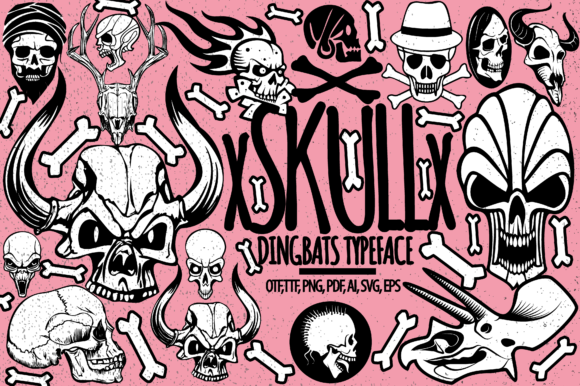
Journey into the realm of the macabre with X Skull X Font, a dingbats font that conjures eerie skull motifs with every keystroke. Unleash your creativity and delve into a world of sinister designs. This font invites you to explore a haunting aesthetic that will capture the attention of horror enthusiasts and Halloween fanatics alike.
Crafted by Minimalistartstudio, X Skull X Font transforms letters and numbers into a symphony of skulls, bones, and other haunting imagery. It's the ultimate font for expressing your passion for all things spooky, from creating horrifying posters and flyers to designing invitations that set the tone for a spine-chilling event.
Each skull crafted by X Skull X Font possesses a unique personality, ranging from menacing grimaces to haunting grins, ensuring that your designs exude originality. Add an element of the undead to your branding, social media posts, and website designs with this font that oozes creepy charm.
Embrace the dark arts and watch as X Skull X Font captivates your audience with its captivating skull designs. From Halloween-themed marketing campaigns to horror-inspired artwork, this font will add a touch of bone-chilling beauty to any project.
Unleash your dark side and let X Skull X Font become your weapon of choice for creating designs that haunt and inspire. Its versatility knows no bounds, allowing you to weave tales of horror and mystery across a myriad of mediums.